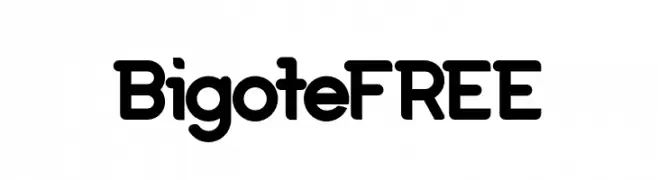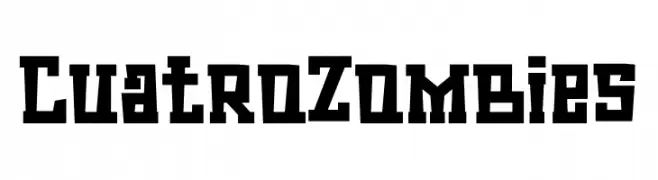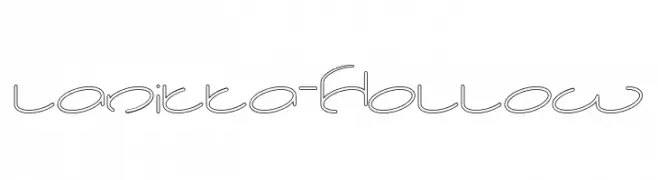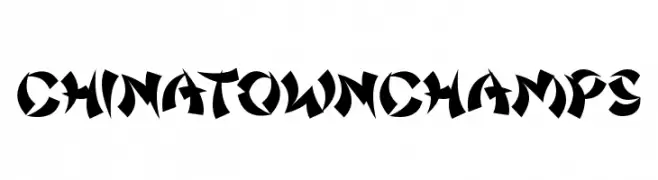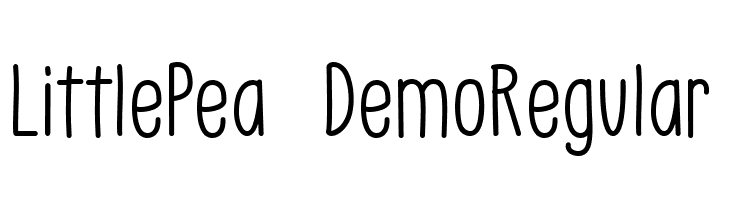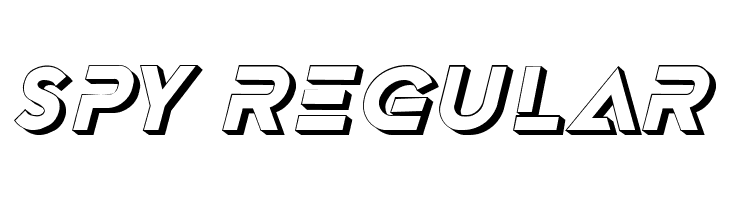
A bold, playful font with rounded edges and a modern, friendly style.
A playful, hand-drawn script font with tall, narrow characters and a whimsical style.
A bold, angular font with a modern, industrial style and high contrast.
A bold, handwritten font with a playful and energetic style.
A modern, hollow outline font with a futuristic aesthetic.
An elegant script font with flowing, interconnected characters and intricate swirls.
A playful, narrow font with rounded edges and consistent stroke width.
A lively, cursive font with interconnected letters and medium contrast, perfect for elegant projects.
A bold, modern font with sharp, angular edges and artistic flair.
A playful handwritten font with tall, narrow letters and a casual style.